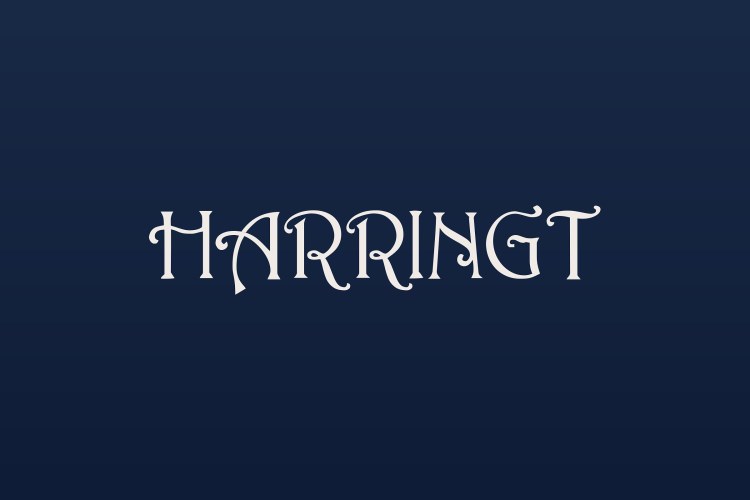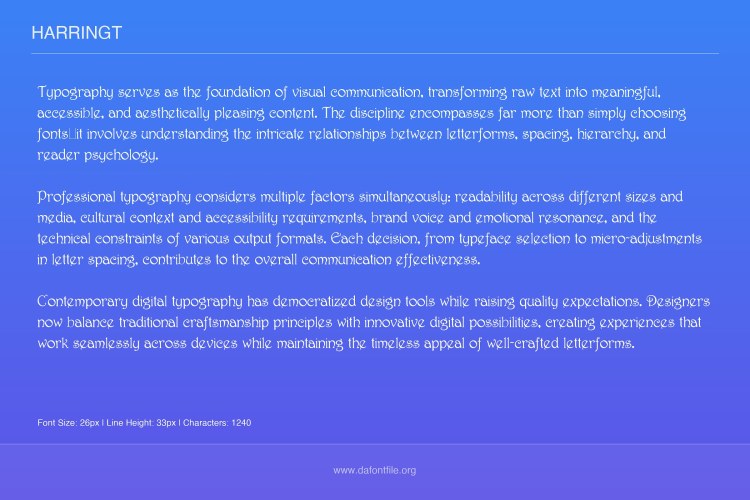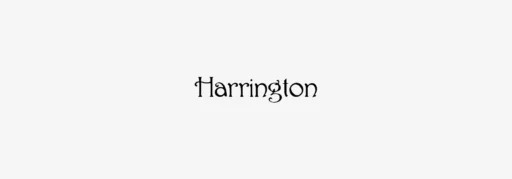
Harrington Font
Harrington is a decorative serif font with a graceful, vintage charm. Its curved strokes and elegant letterforms make it perfect for invitations, titles, logos, and pack…
Harrington is a decorative serif font with a graceful, vintage charm. Its curved strokes and elegant letterforms make it perfect for invitations, titles, logos, and packaging. The font gives designs a touch of old-world sophistication while staying easy to read. Designers use Harrington to add style and personality to both modern and classic projects.
Where Harrington Font works best
Harrington Font is built for size: event posters, hero headlines and billboard-style layouts.
High contrast display type like Harrington Font reads instantly in thumbnails and motion graphics.
What is Harrington Font good for?
Harrington Font is a Display Fonts typeface tagged Classic, Decorative, Display, Display Fonts. It works well for headlines, logos, posters, social media graphics and branding projects that need a distinctive display fonts look.